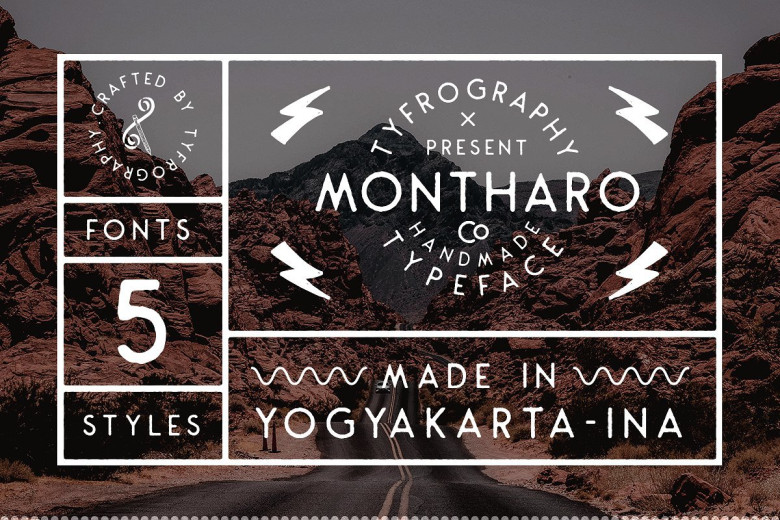
Montharo Font Family
Introducing Montharo! It is designed by Tyfrography, this is a premium font, are sold on creativemarket, but it was great, it is free today for download. A font family which has 5 font version. The character of the rough edge, inky, round and stamp verison . Everything version is suitable for vintage & retro feel. What will you get: -Montharo Regular -Montharo Round -Montharo Stamp -Montharo Edge -Montharo Inky Features: -Uppercase -Lowercase -Numerals & Punctuations -Ligatures, stylistic alternate -Multilanguage -Perfect for logotype, headline, apparel, poster with vintage feels.